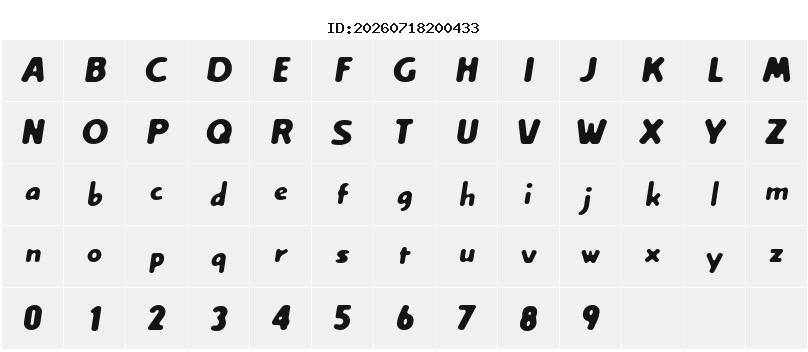
• Font Name: Creamexbold
About Creamexbold.ttf
Creamexbold.ttf is a modern, elegant sans-serif font designed for ultimate readability and visual harmony. Perfect for branding, headlines, web design, and print materials.